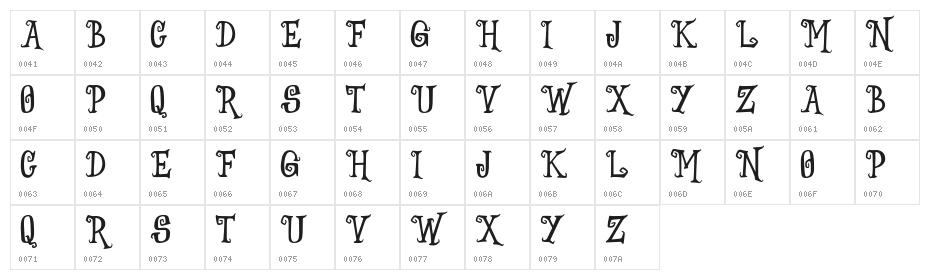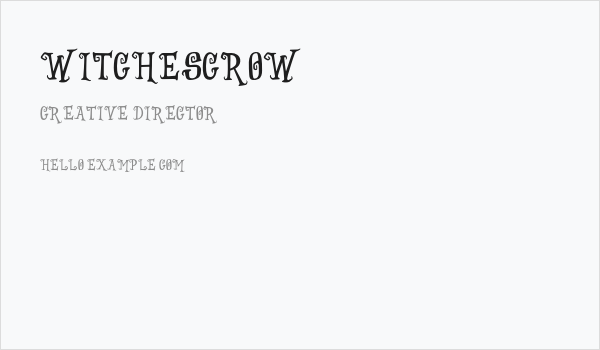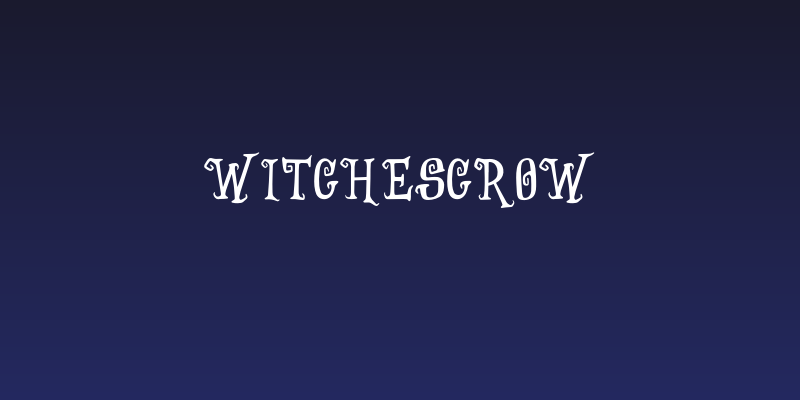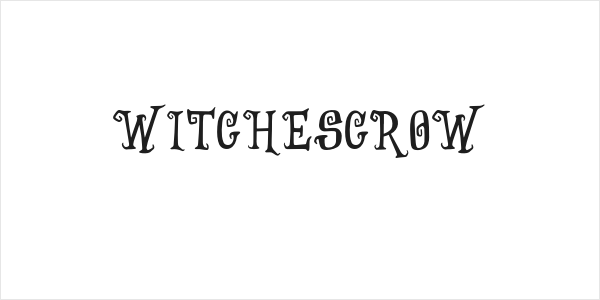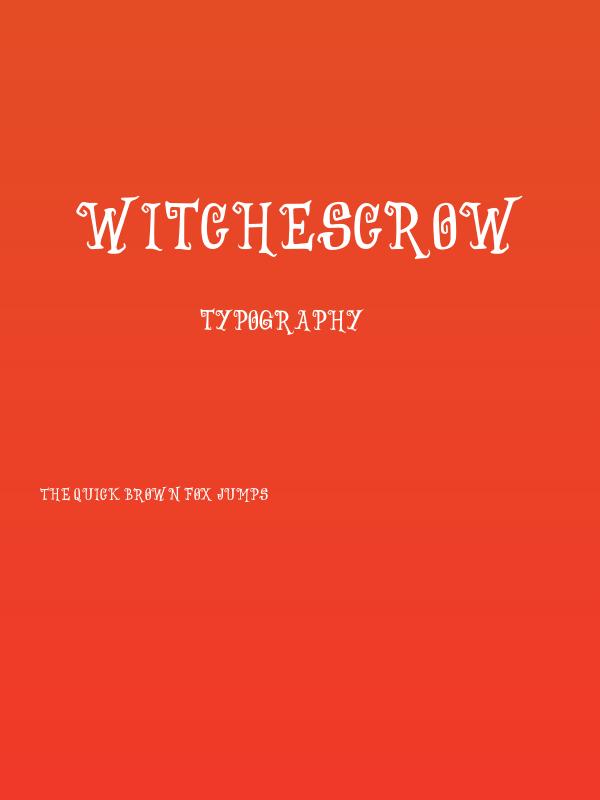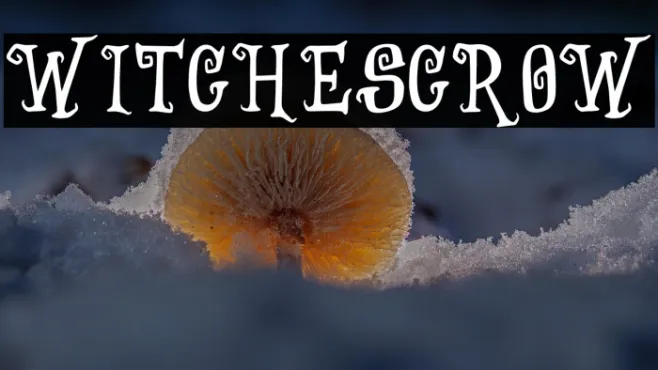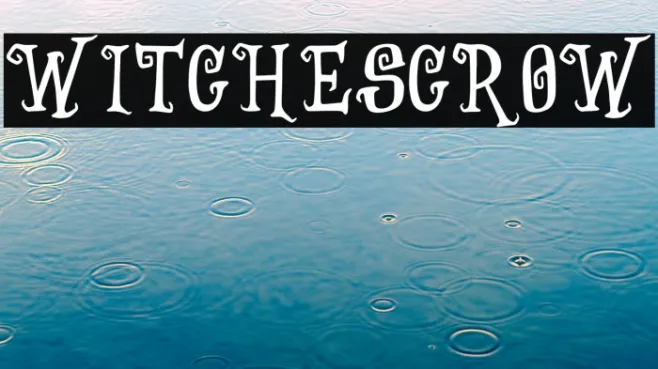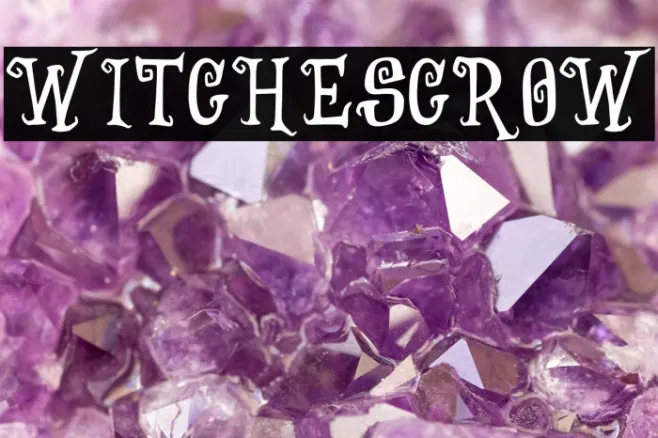
WitchesCrow Font
WitchesCrow Description
This font features a whimsical and decorative style, characterized by its playful and slightly gothic appearance. The letters have unique, exaggerated serifs and a hand-drawn quality, giving them a quirky and enchanting look. The strokes are moderately thick, with occasional curls and twists that add to the font's charm. The overall design is reminiscent of vintage or fantasy themes, making it suitable for creative and imaginative projects. The uppercase and lowercase letters maintain a consistent style, ensuring readability while still offering a distinct personality.
| Overall Style | Vintage, Decorative |
| Proposed Projects | Ideal for Halloween-themed designs, fantasy book covers, children's storybooks, and creative branding. |